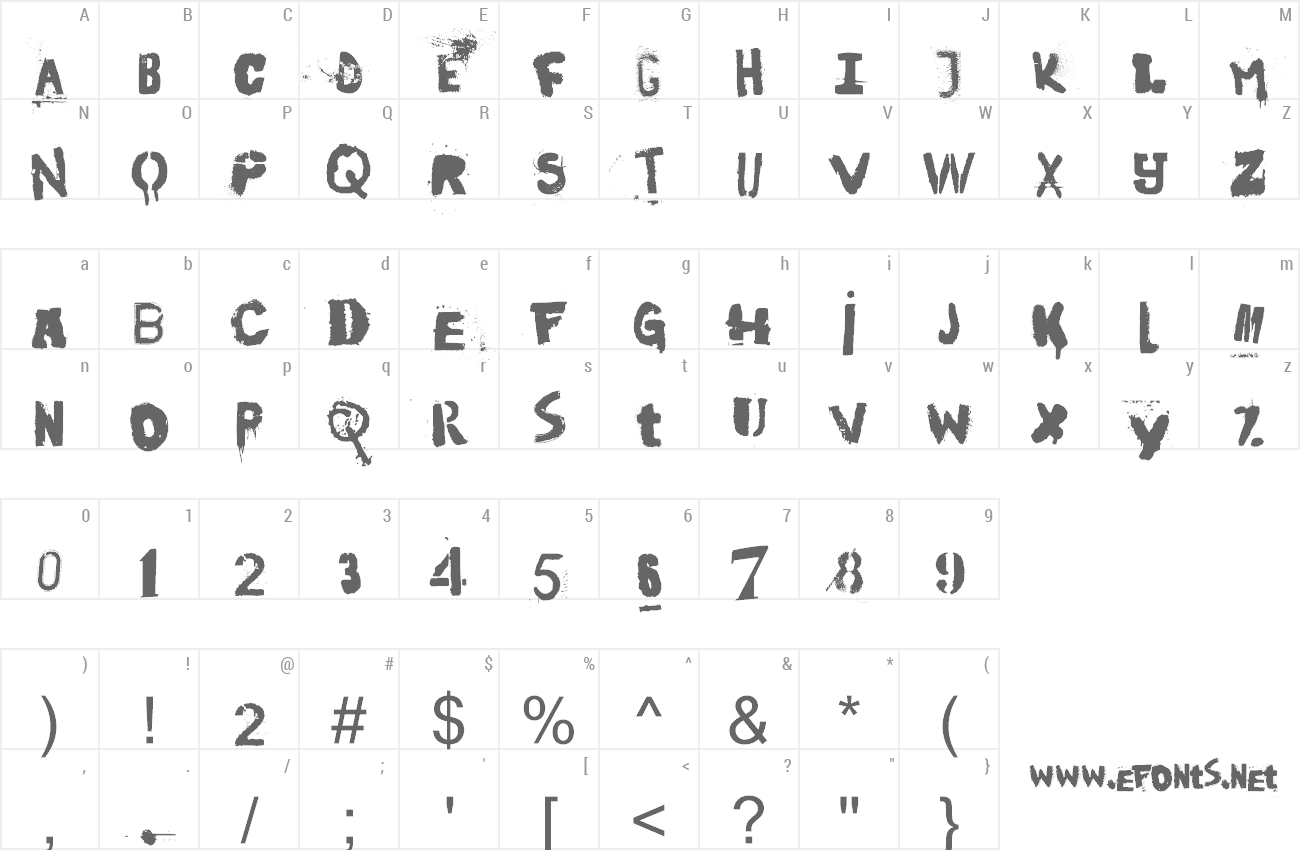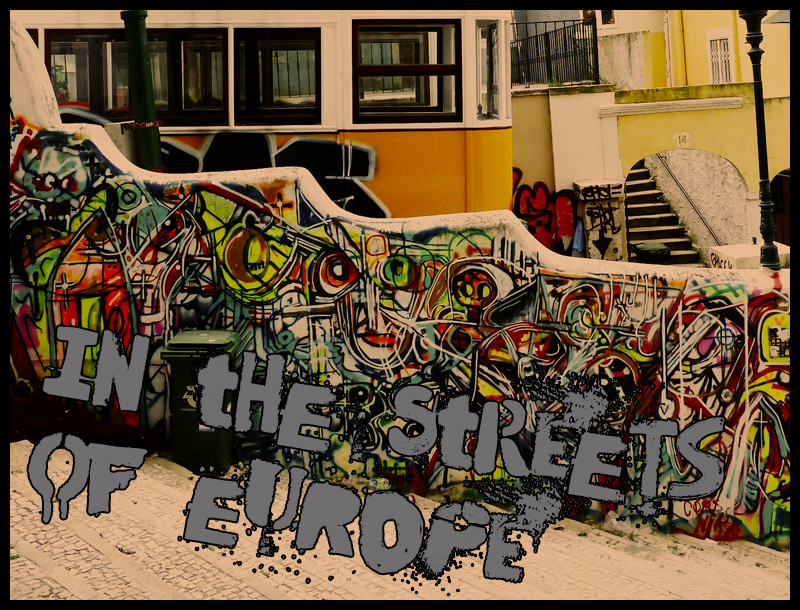
Preview and download In the streets of Europe Font. Created by Frederic in Fancy Destroy styles with Free for personal use license.
"In the streets of Europe" is inspired by many trips all across Europe. Letters are made from graffiti in Liverpool, Madrid, Lisbon, Sofia, Bucharest and Budapest, demonstrations in Barcelona and Thessaloniki, cars in Sibiu, trains in Belgrade, and a lot more. This font supports many languages and is free for personal use. If you wish to use it for a commercial purpose, please contact me: contact [at] fthafm [dot] com Facebook: http://www.facebook.com/fthafm | Website: http://www.fthafm.com/ |